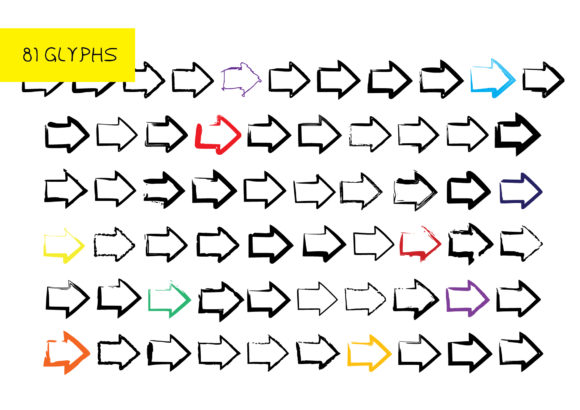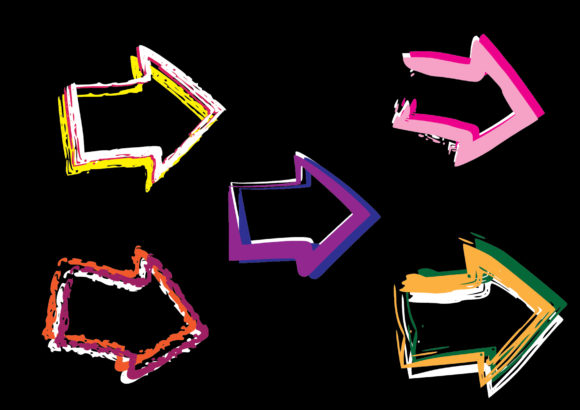
Find Your Direction with BM Graphics – Big Arrows Font
As designers, we’ve all been there – staring at a blank canvas, struggling to bring our vision to life. The cursor blinks, and the blank space seems to mock us. But then, like a spark of creativity, it hits us – a bold idea, a fresh perspective, or a dash of visual flair. And that’s exactly when the right font can make all the difference. Enter BM Graphics – Big Arrows Font, a stunning dingbats font that’s about to revolutionize your design projects.
With its vast collection of arrow designs, BM Graphics – Big Arrows Font is the perfect tool to add a modern twist to your work. Whether you’re a seasoned pro or just starting out, this font is a valuable addition to your design arsenal. Its versatility and uniqueness make it an ideal choice for designers looking to take their projects to the next level.
Key Features of BM Graphics – Big Arrows Font
- Character Set: The font includes a wide range of characters, including uppercase and lowercase letters, numbers, and special symbols, making it a versatile choice for various design projects.
- Unique Characteristics: The Big Arrows Font features bold, colorful arrows that can be used to draw attention, create visual interest, and convey direction or emphasis in designs.
- Color Options: The font comes with a range of color options, allowing designers to choose from various shades and hues to match their design scheme and style.
BM Graphics – Big Arrows Font Review
Overall, I think BM Graphics – Big Arrows Font is a fun and quirky addition to any project. It’s perfect for emphasizing important information or adding a touch of playfulness to a design. ✨ The font’s bold and colorful arrows are sure to grab the user’s attention.
The font’s customizability is also a major plus. It comes with a range of arrow styles, colors, and sizes to choose from, making it easy to tailor the font to your specific needs. ✨ The arrow shapes and colors can be easily swapped out to match your brand’s style.
- ⚠️ Limited character set: The font only includes uppercase and lowercase letters, with no punctuation or numbers.
- ⚠️ Not ideal for body text: Due to its bold and playful nature, Big Arrows Font isn’t suitable for large blocks of text. It’s best used for headings, titles, or call-outs.
Overall, I’d say Big Arrows Font is a solid choice for designers looking to add some visual interest to their projects. While it has some limitations, its unique design and customizability make it a great addition to any design toolbox.
BM Graphics – Big Arrows Font is perfect for creating bold, eye-catching headings and titles in modern designs. It’s commonly used in:
- Infographics
- Presentations
- Web design
Remember to use the font in moderation and balance it with other design elements to avoid overwhelming the viewer.